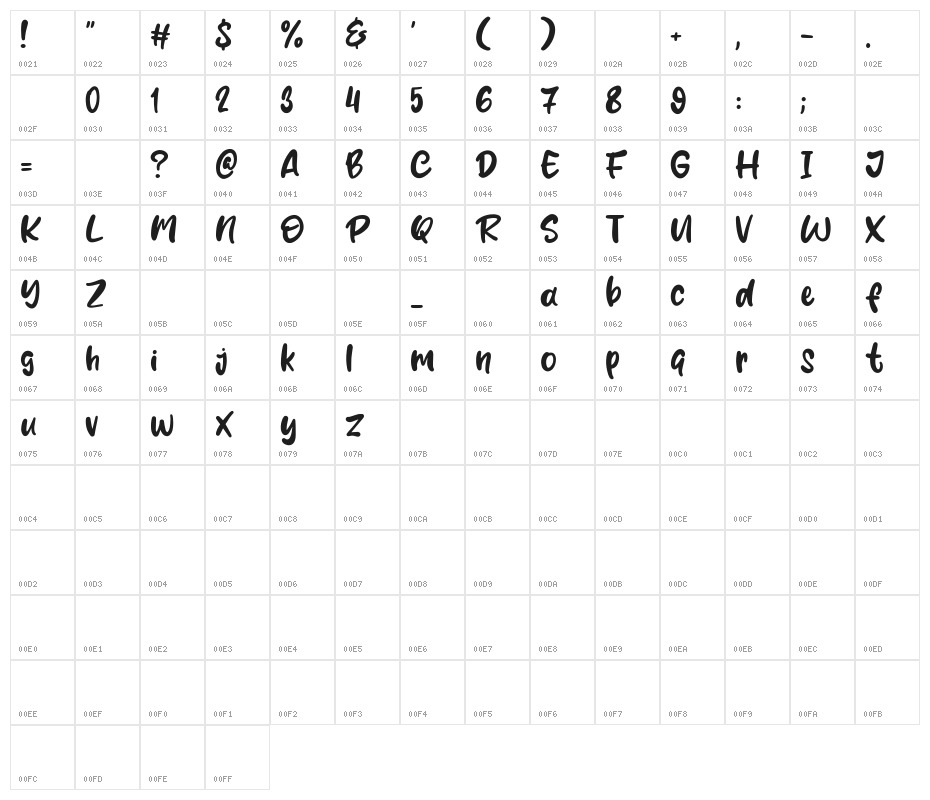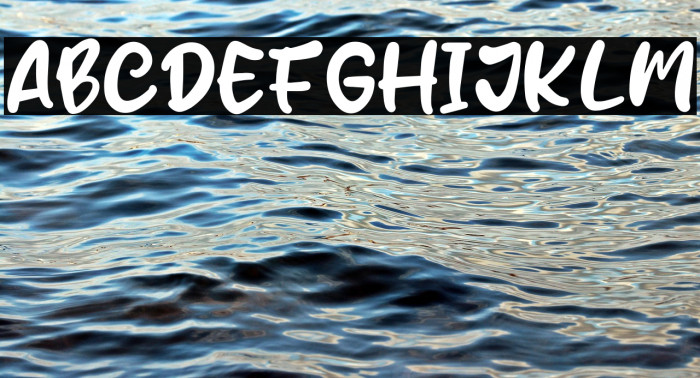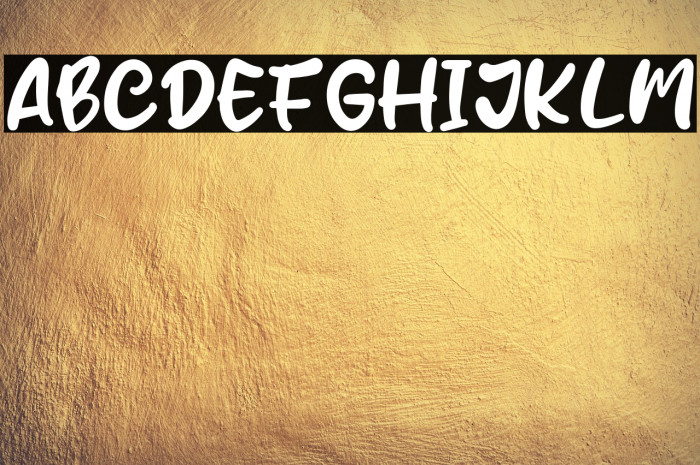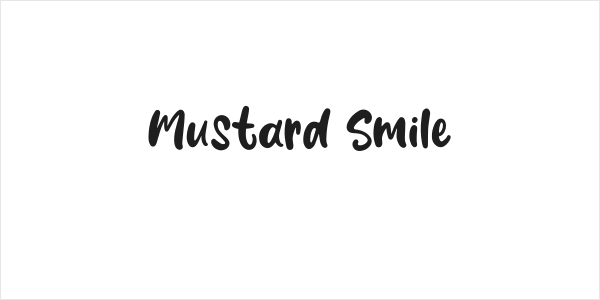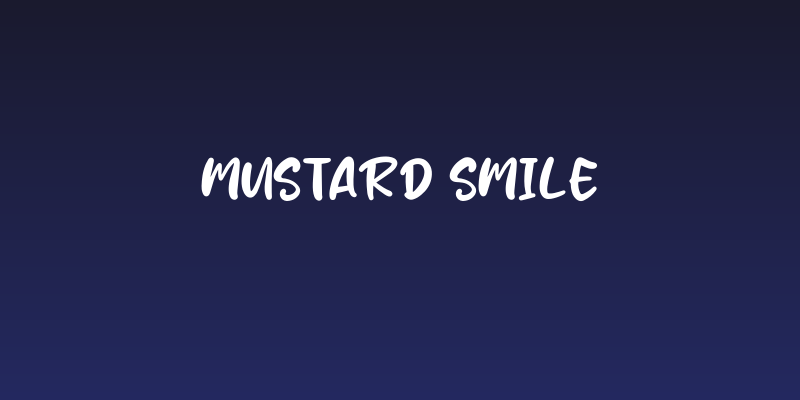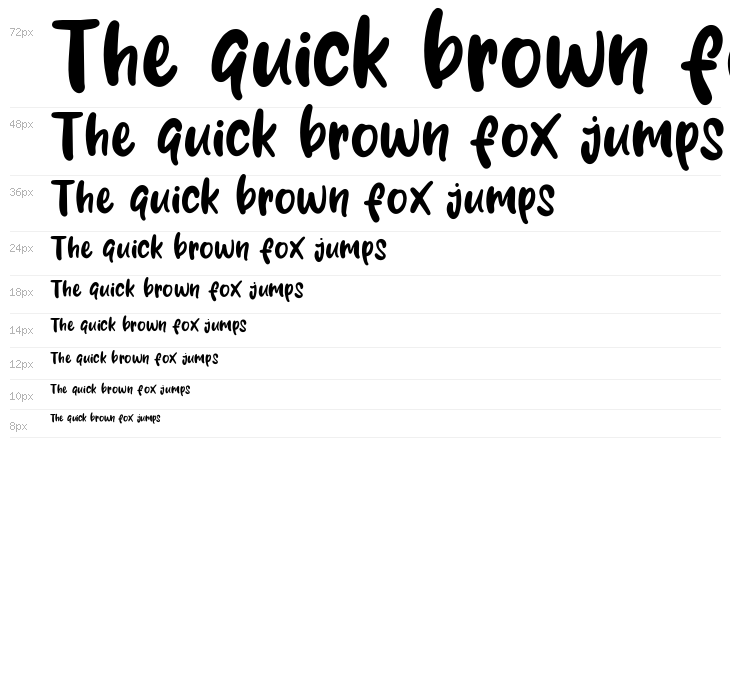
Mustard Smile Font
Mustard Smile Description
This font features a playful and bold handwritten style, characterized by its thick strokes and smooth curves. The letters are slightly slanted, giving a dynamic and energetic feel. The uppercase and lowercase letters maintain a consistent style, with rounded edges and a casual appearance. The numbers and special characters follow the same design principles, ensuring uniformity across all glyphs. This font exudes a friendly and approachable vibe, making it suitable for projects that require a personal touch.
| Proposed Projects | Ideal for greeting cards, children's books, playful branding, and social media graphics. |